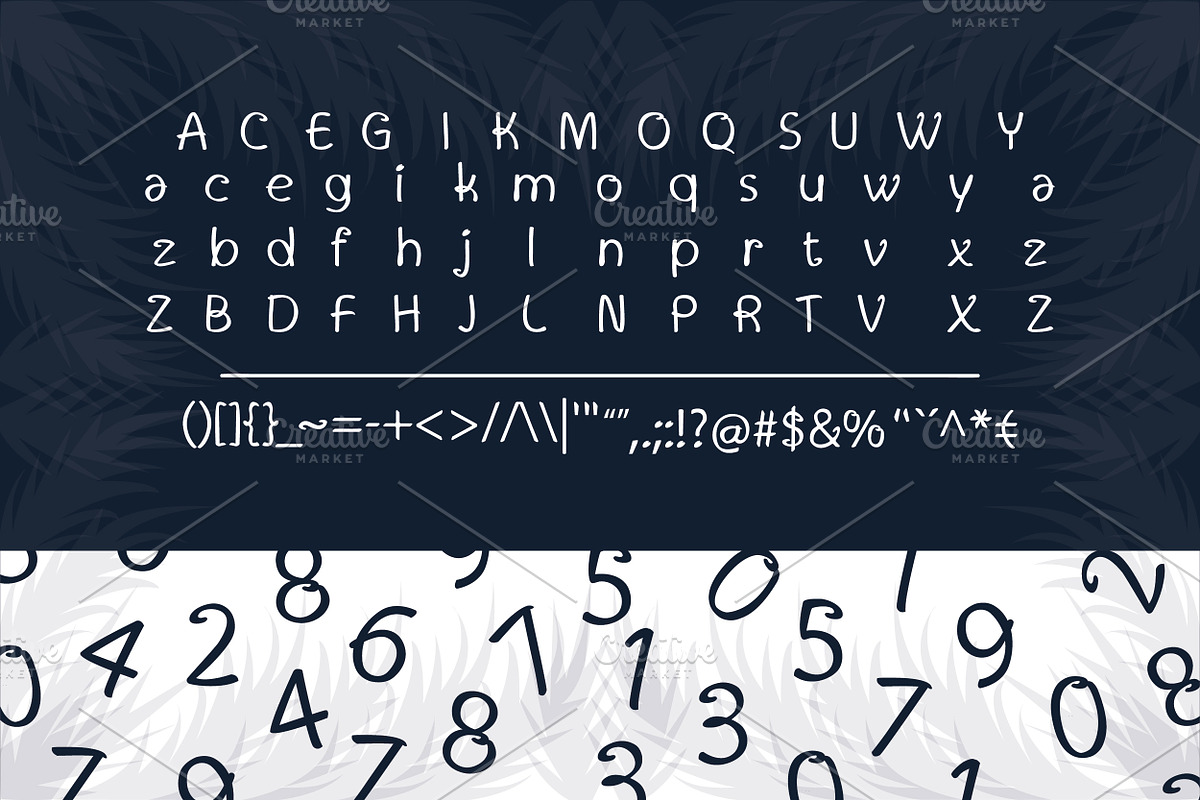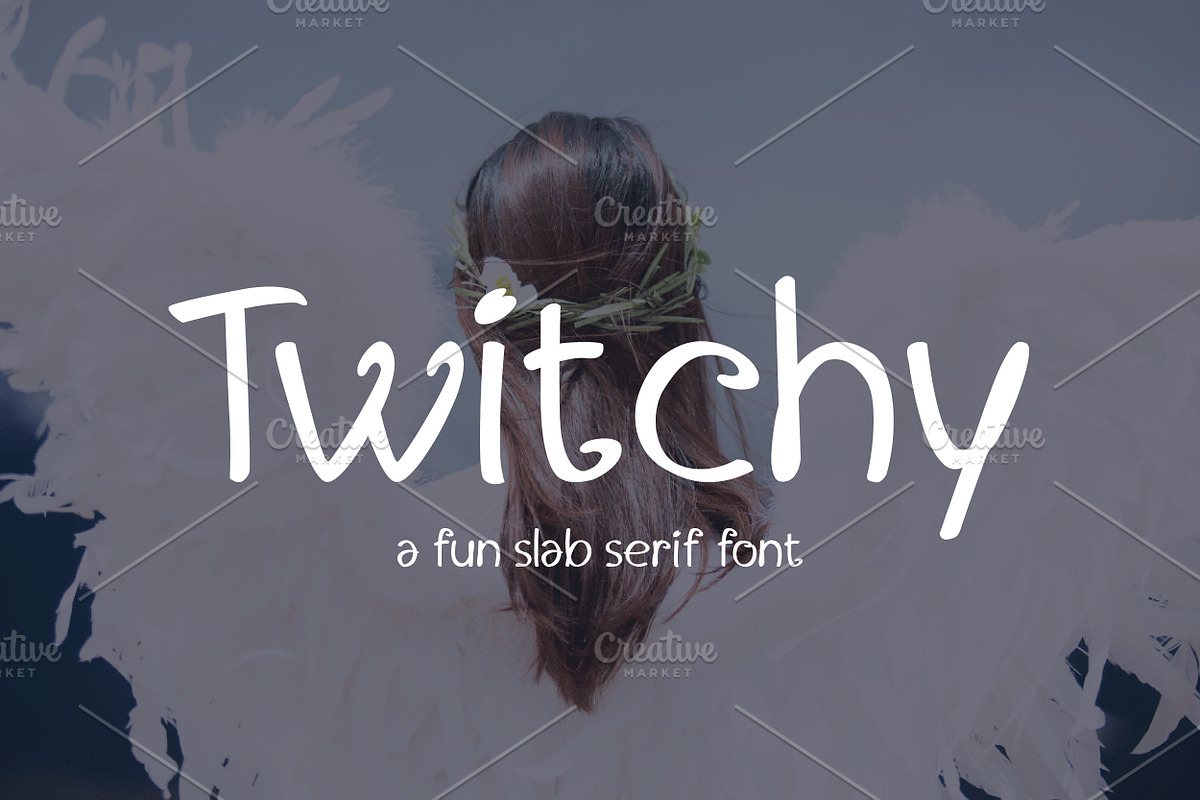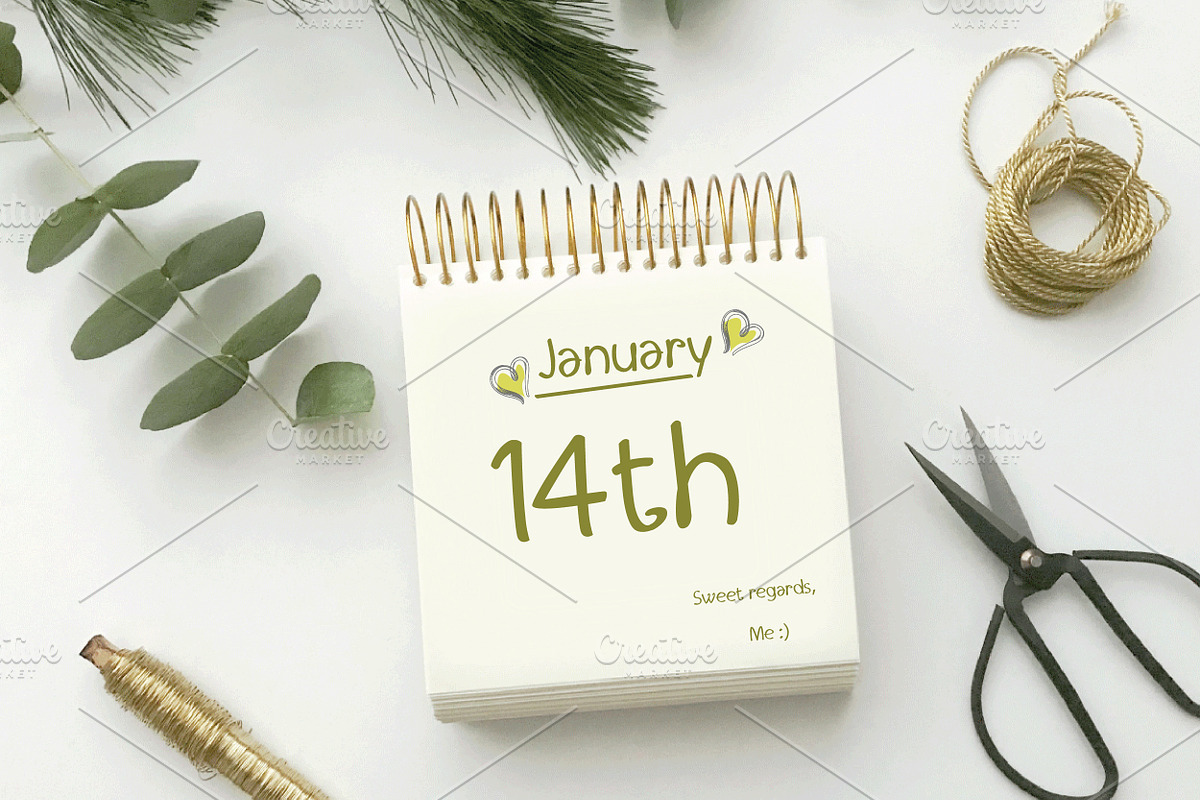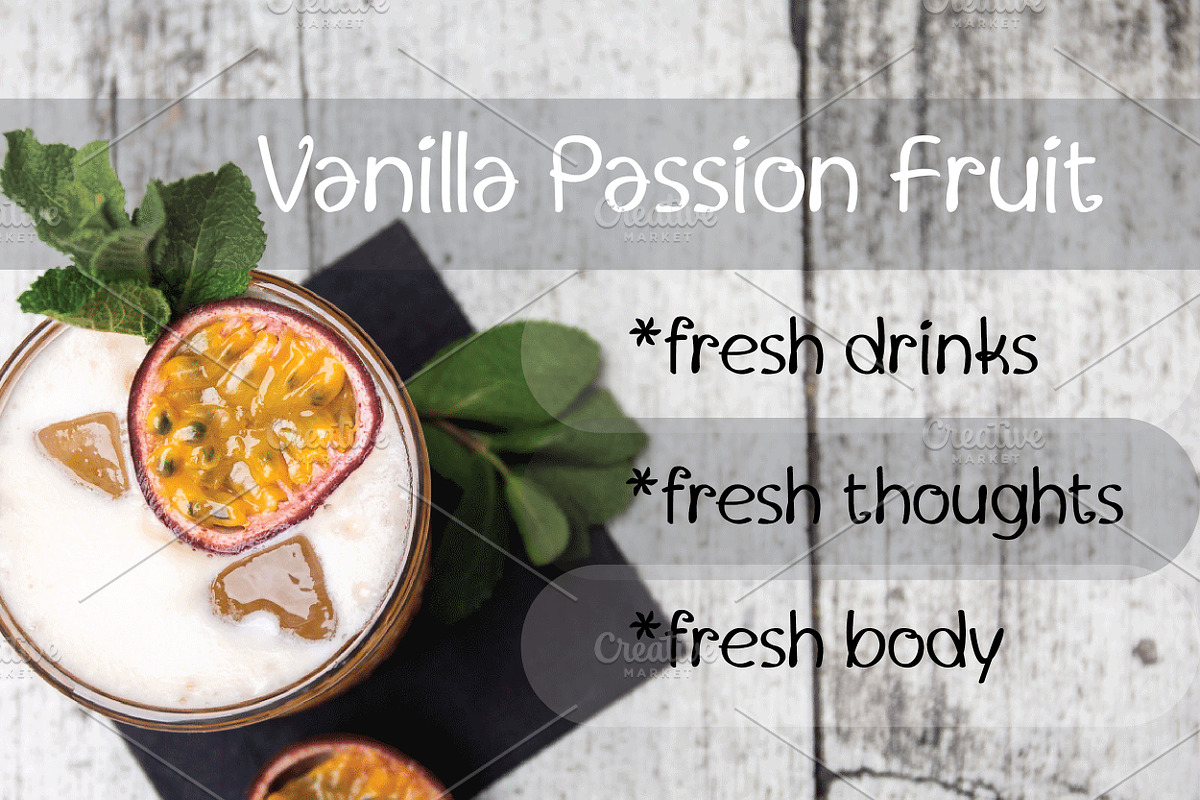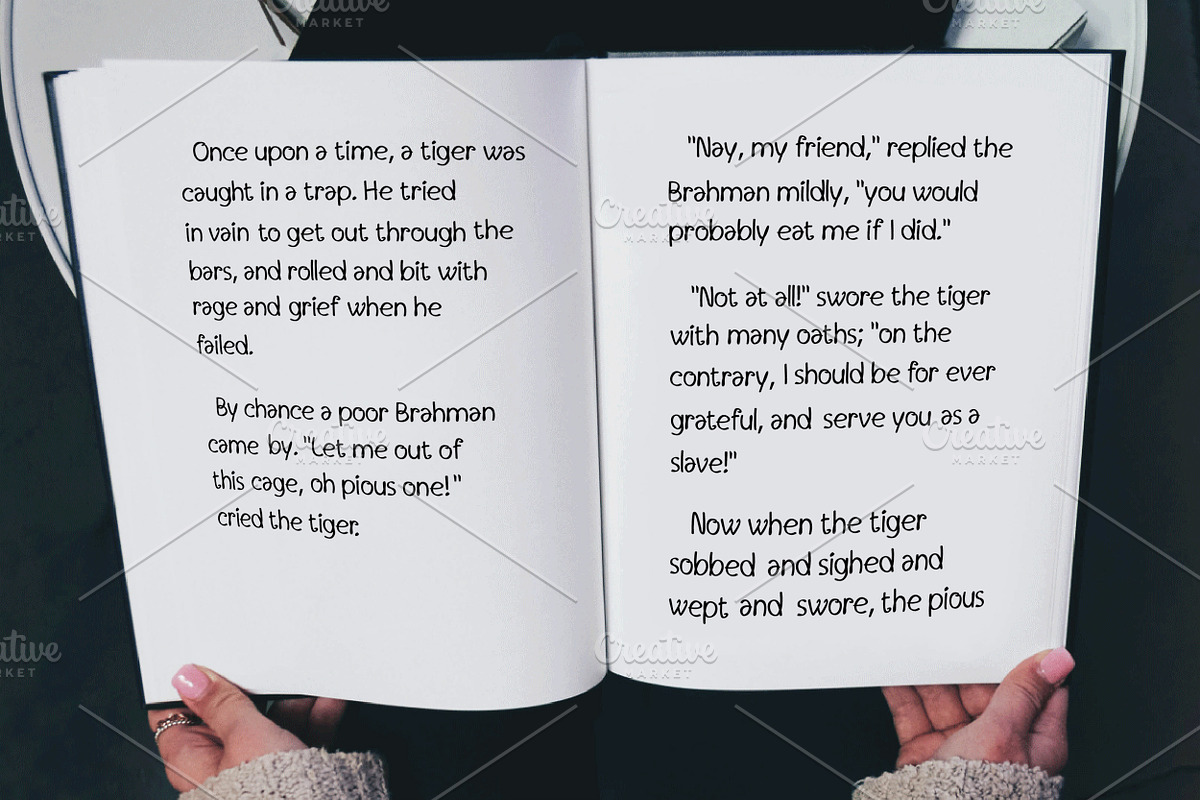
Twitchy - Fun Slab Serif Display
Twitchy is a whimsical script font with a relaxed theme, featuring a lovely style. No matter the topic, this font will be an incredibly asset to your fonts’ library, as it has the potential to elevate any creation.